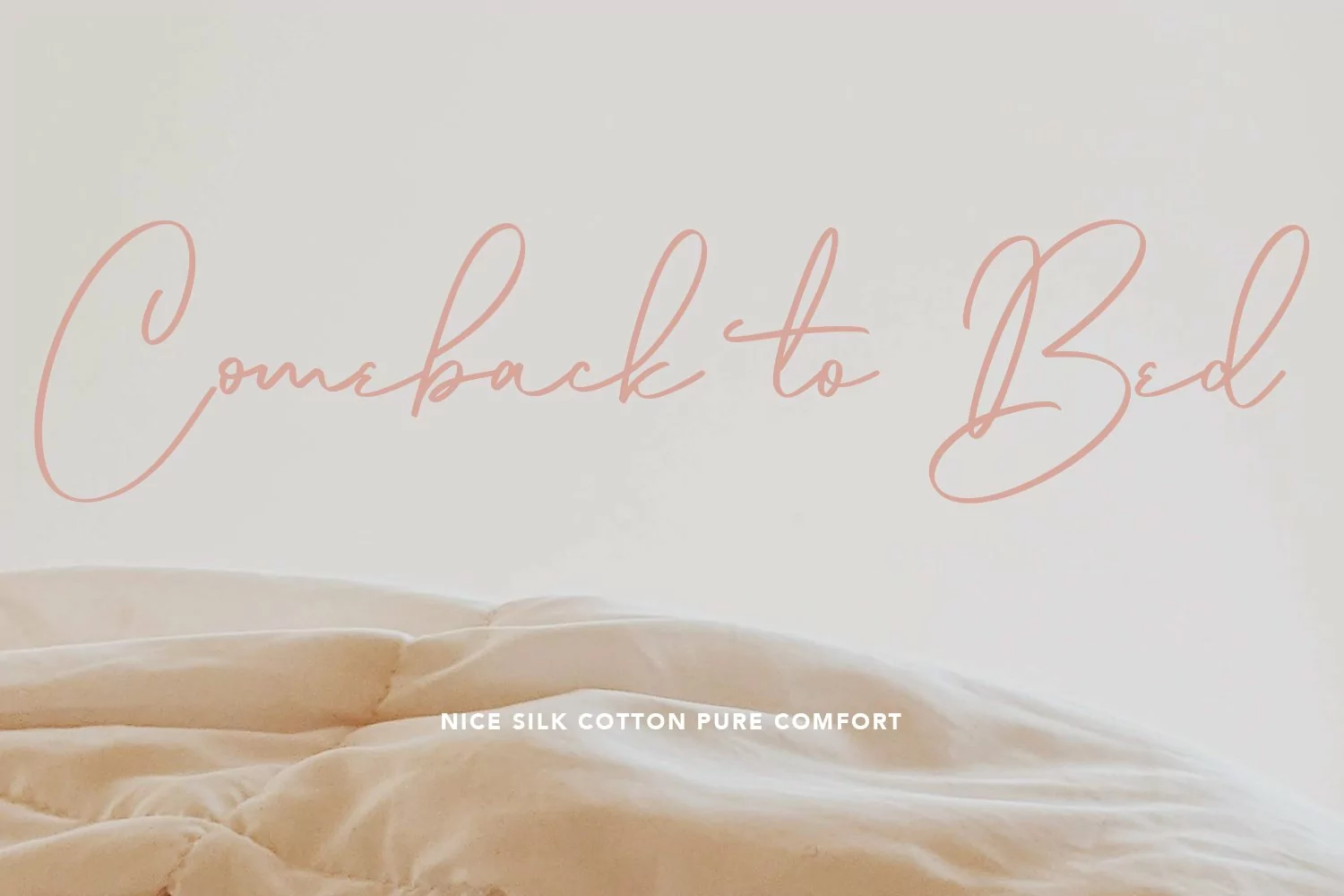
Collibryums is a modern signature font inspired by social media advertising and product titles. It has Opentype features Ligatures and extra swash to give you a nice pair name logos. Collibryums support multilingual more than 100+ language. This font is good for logo design, Social media, Movie Titles, Books Titles, a short text even a long text letter and good for your secondary text font with sans or serif. Make a stunning work with Collibryums signature font.